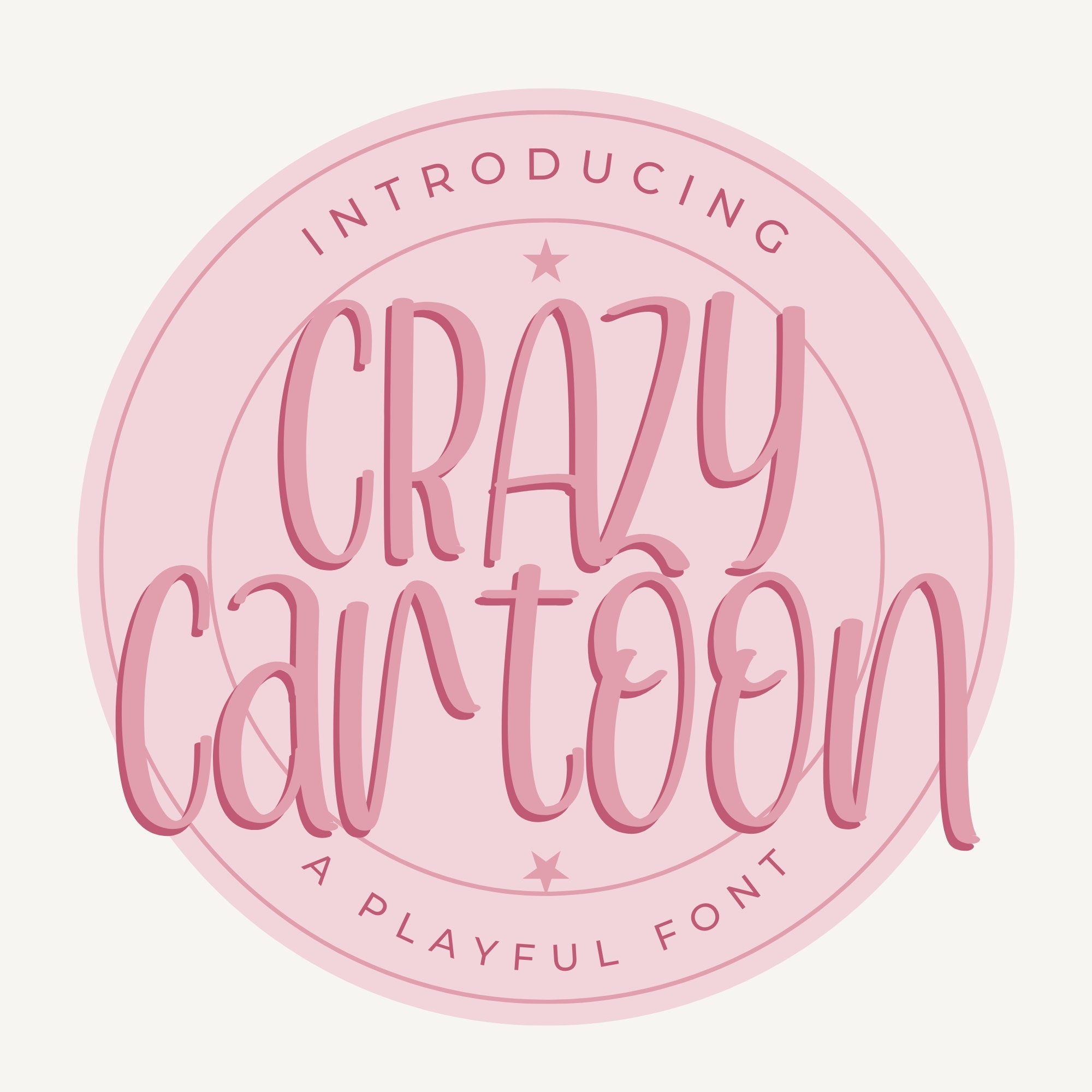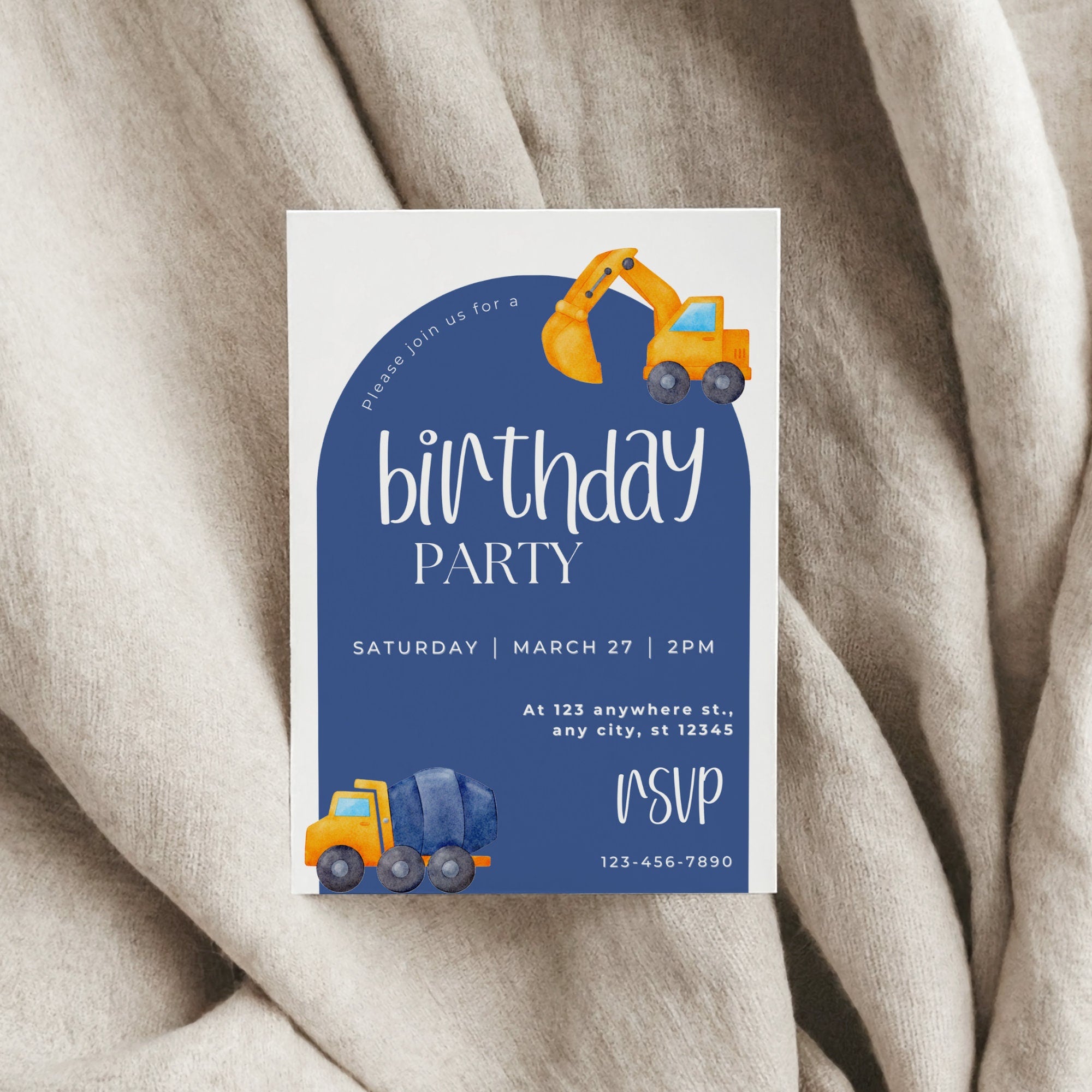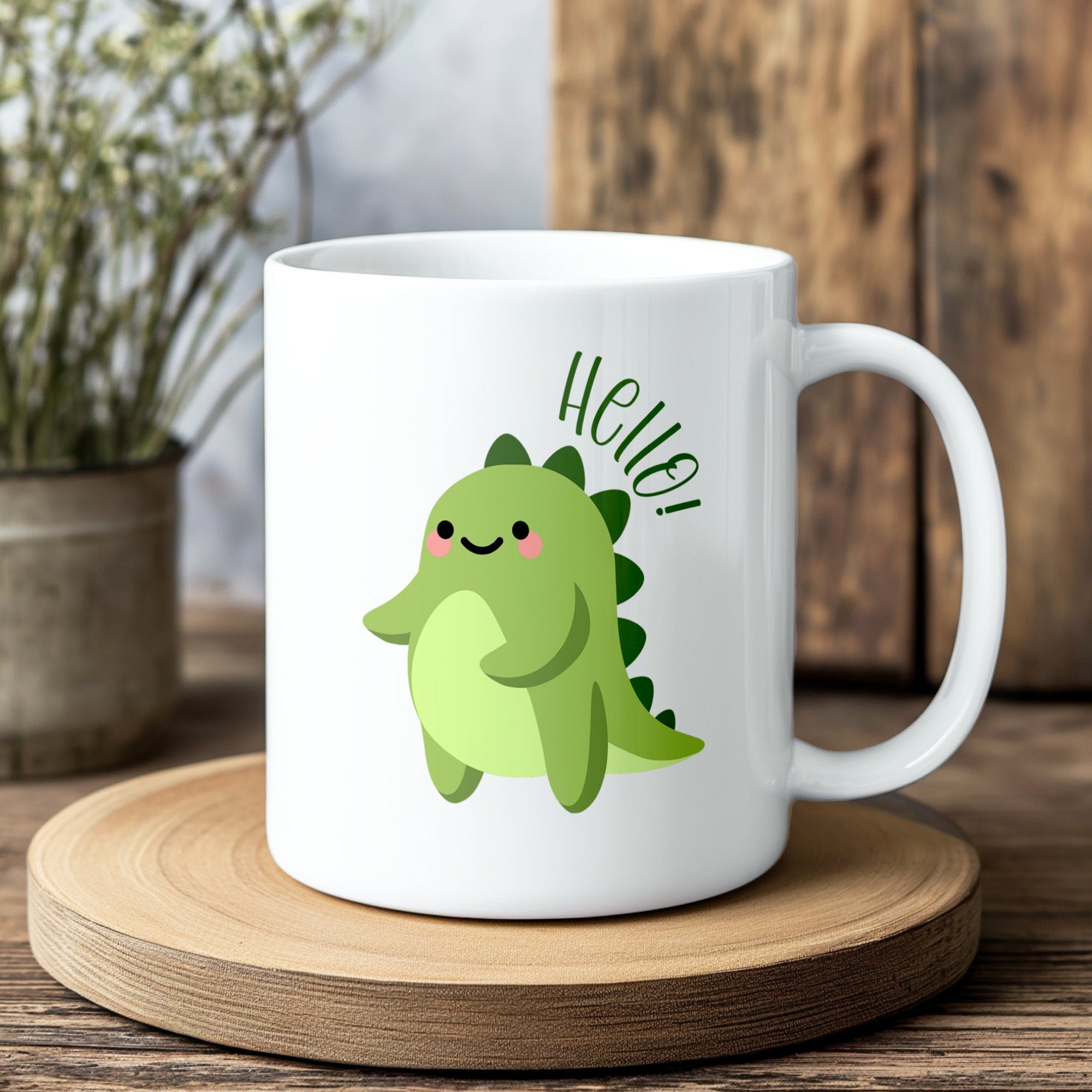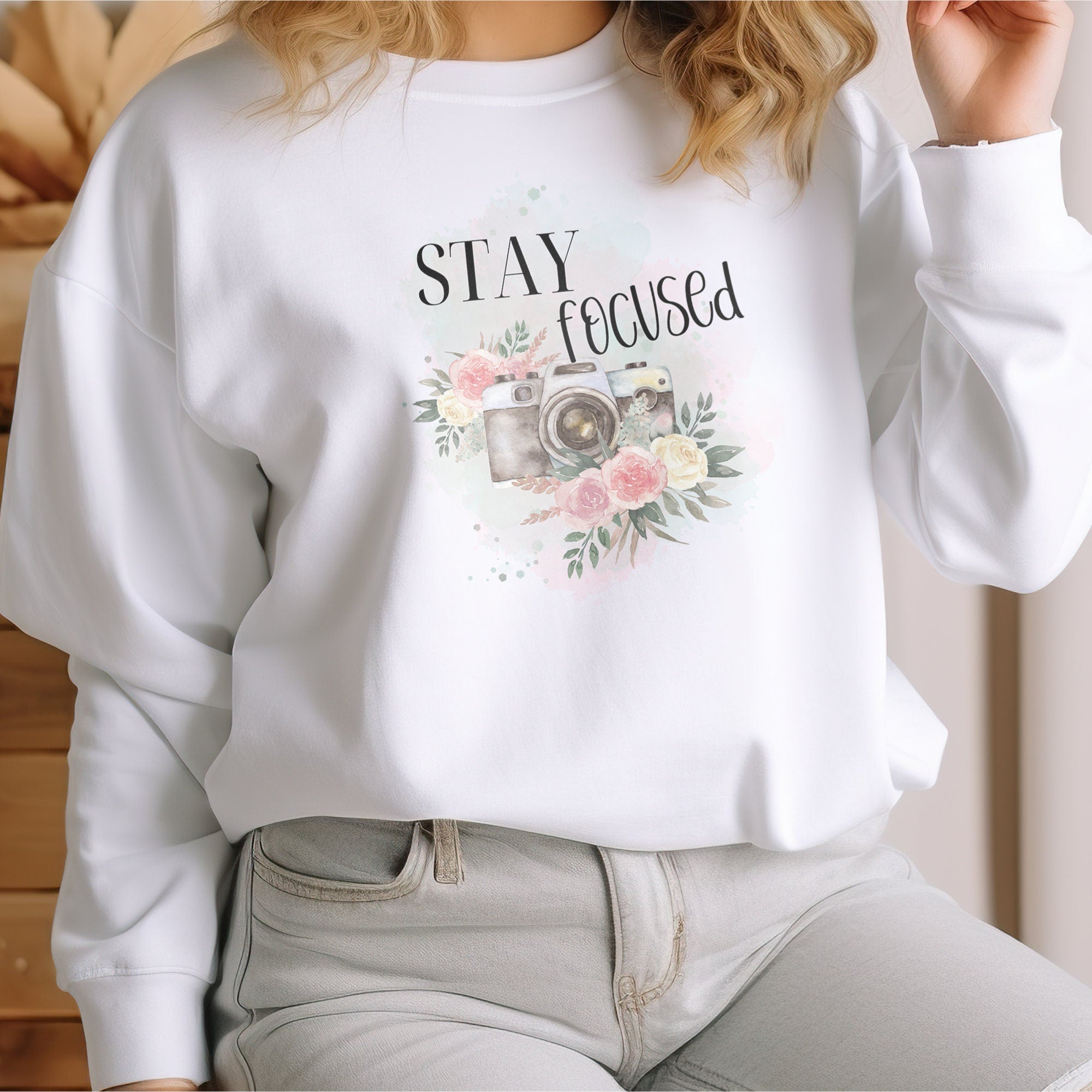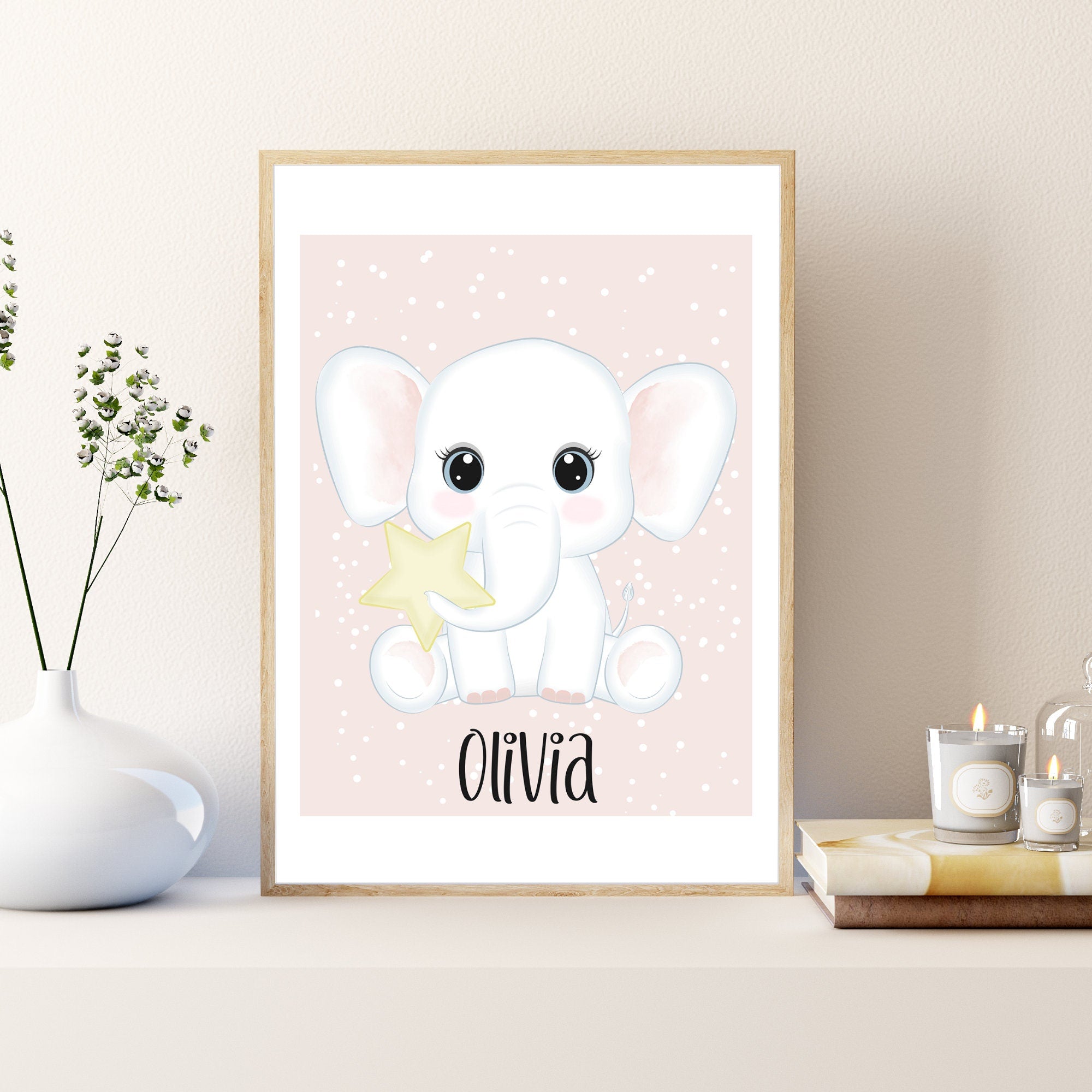
Playful Calligraphy Script Font Bundle for Cricut Handwritten Invitations
OpenType features Includes ligatures, contextual alternates, and kerning for natural handwritten flow